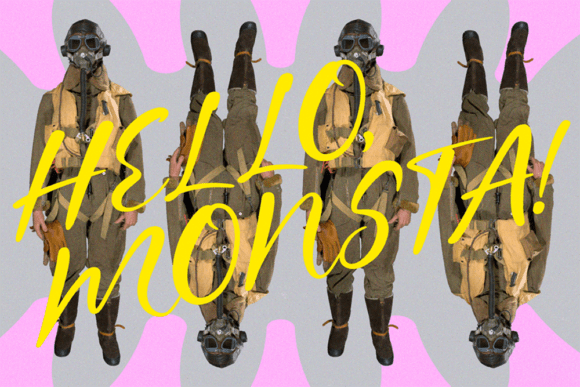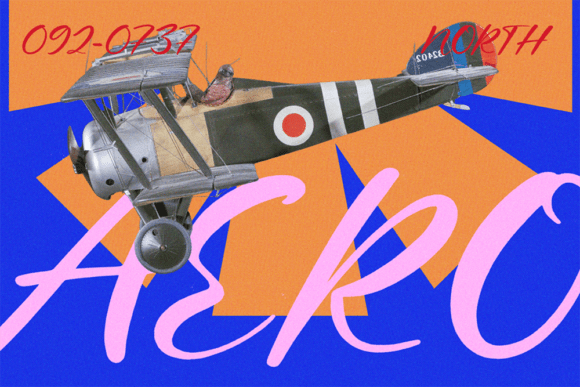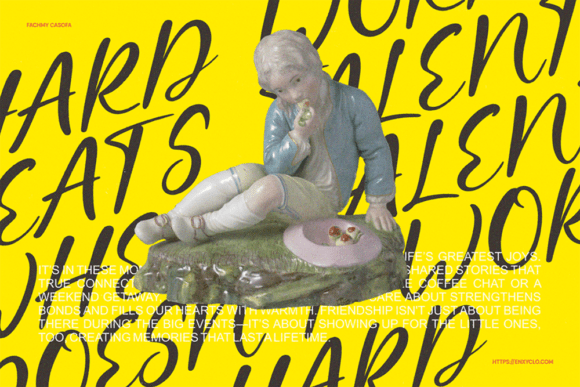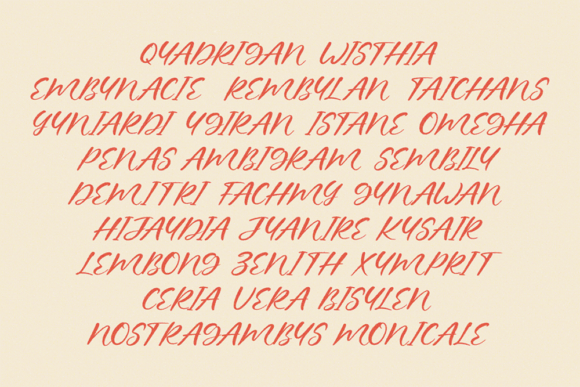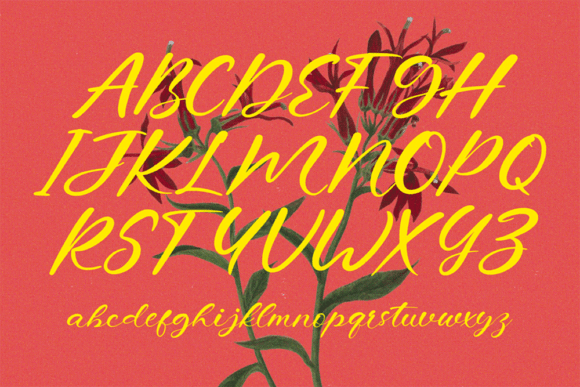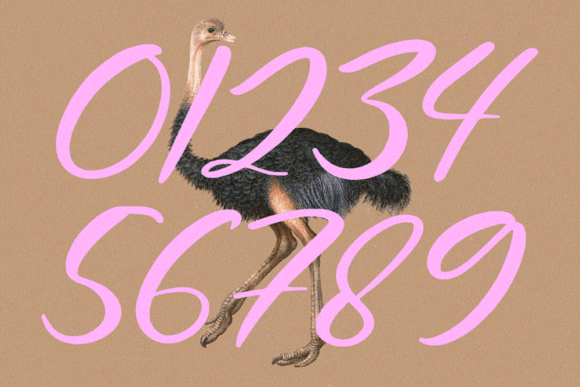
Unleash Your Creativity with BEMSOER Font: A Dynamic Brush Script Masterpiece
Step into an era where artistry and charisma blend seamlessly with BEMSOER, a dynamic and bold brush script font that emanates a potent combination of energy, spontaneity, and vintage undertones. This stunning typeface is designed to breathe life into every letterform, radiating an irresistible allure that captivates the eye. Whether you’re a designer, craftsperson, or simply a creative enthusiast, BEMSOER is an exceptional addition to your font collection.
The Artistry of BEMSOER
BEMSOER is rendered with an artistic hand, boasting an essence that effortlessly merges traditional and modern elements. The font’s organic finish is enchanting, with each letterform meticulously crafted to evoke a sense of movement and fluidity. The bold brush script style injects a dose of energy and spontaneity, making BEMSOER perfect for projects that demand attention-grabbing headlines, creative advertising, and captivating visual storytelling.
A Versatile Font for Diverse Applications
BEMSOER thrives in both digital landscapes and print canvases, providing you with a range of usability that extends from poster headlines to creative advertising, and everything in between. This versatile font is ideal for:
- Poster design: Create eye-catching posters that demand attention with BEMSOER’s bold and dynamic lettering.
- Branding and advertising: Infuse your brand with a touch of personality and whimsy, making it stand out in a crowded market.
- Digital media: Enhance your social media graphics, website headers, and email marketing campaigns with BEMSOER’s unique charm.
- Print materials: Elevate your business cards, brochures, and flyers with a dash of sophistication and elegance.
Features and Flexibility
BEMSOER is supported by a variety of features that make it an incredibly flexible font. With over 390 unique glyphs, you’ll have access to:
- Uppercase and lowercase letters: Perfect for creating titles, headings, and body text.
- Numbers and punctuation: Essential for crafting compelling narratives and conveying information.
- Symbols and separators: Add a touch of personality to your designs with a range of symbols and separators.
- Currency signs: Easily incorporate currency signs into your designs, making it perfect for financial and business applications.
The Beauty of BEMSOER’s Design Elements
Furthering the flexibility of BEMSOER are the beautiful design elements that complement its bold brush script style. The font’s artistic flair is characterized by:
- Expressive letterforms: Each letter is carefully crafted to convey a sense of movement and energy.
- Intricate details: Delicate details and flourishes add a touch of sophistication and elegance.
- Organic feel: The font’s organic finish creates a sense of warmth and approachability.
Why Choose BEMSOER?
In a world where typography plays a crucial role in visual communication, BEMSOER stands out as an exceptional choice for designers and craftspersons. This dynamic font offers:
- Unique character: BEMSOER’s bold brush script style and vintage undertones make it a standout in any design.
- Versatility: Seamlessly integrate BEMSOER into your designs, from digital media to print materials.
- Creativity: Unlock your creative potential with BEMSOER’s extensive range of glyphs and design elements.
In conclusion, BEMSOER is an extraordinary font that embodies the perfect blend of artistry, charisma, and creativity. With its dynamic and bold brush script style, vintage undertones, and extensive range of glyphs, BEMSOER is an indispensable tool for designers and craftspersons seeking to elevate their designs and leave a lasting impression.